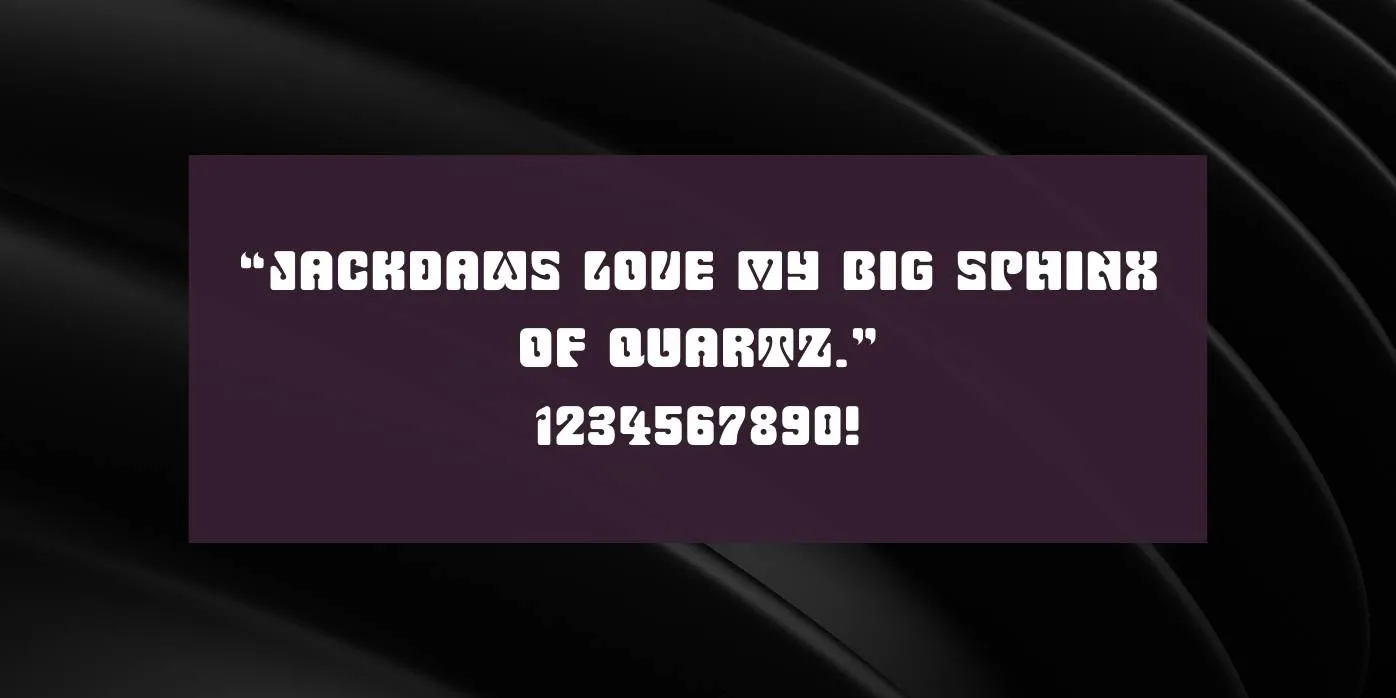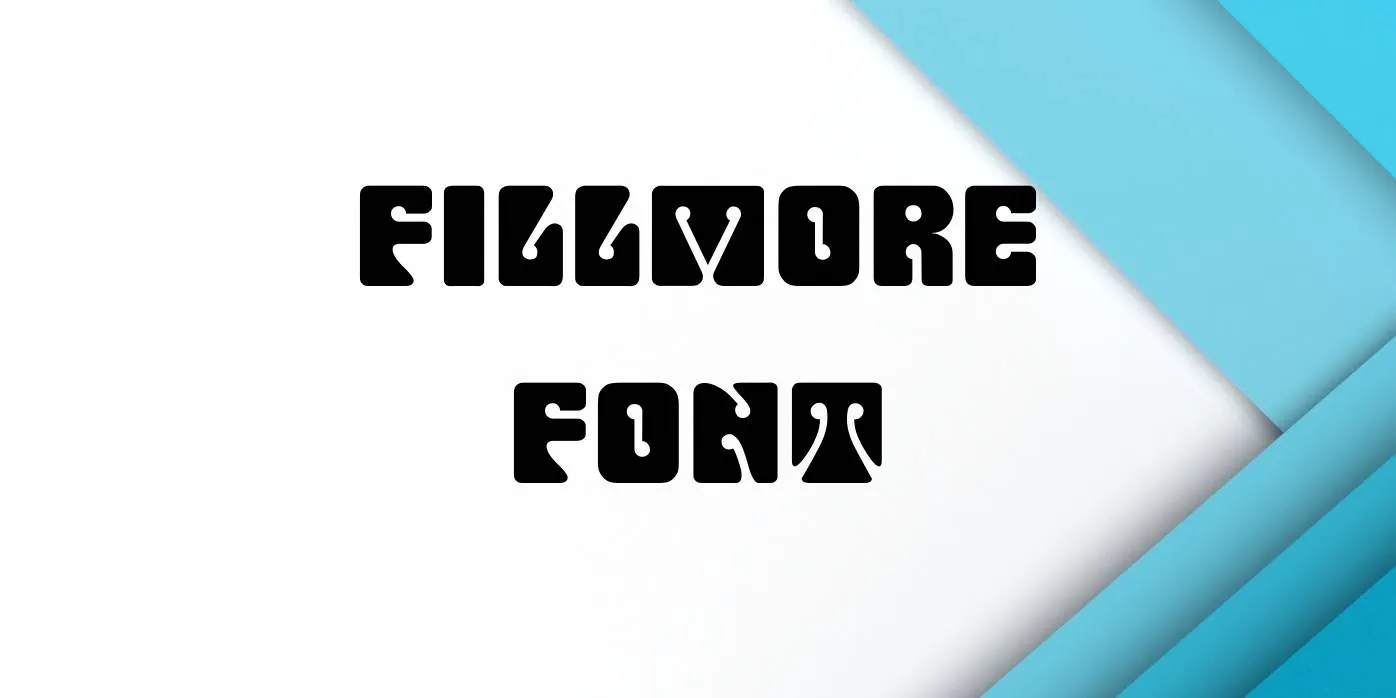
Fillmore Font
In this post, we discuss Fillmore Font which belongs to the Display family.  This typeface was designed by Jim Rimmer and released through his foundry, Typography Workshop, in 2009. This typeface is well famed for CSS and SVG. This display typeface has a unique design that makes it perfect for headlines and other display use. This font family includes four weights (light, regular, medium, and bold) and four styles (regular, italic, condensed, and extended).